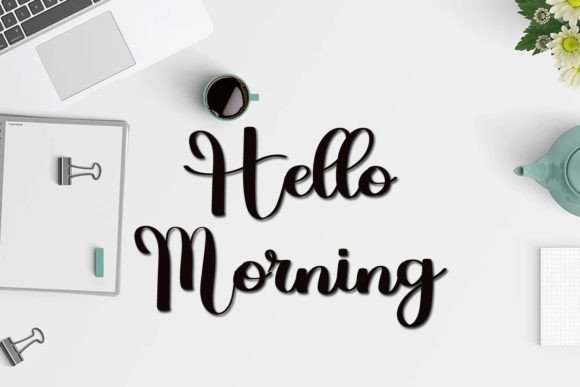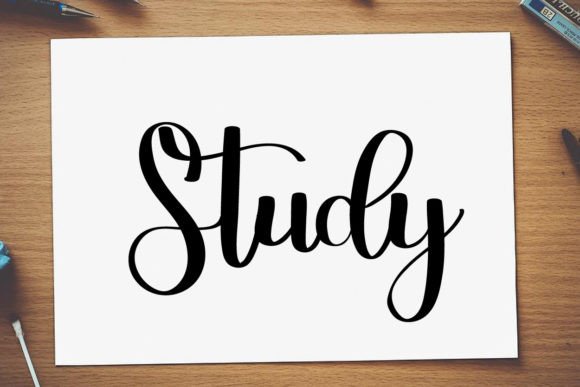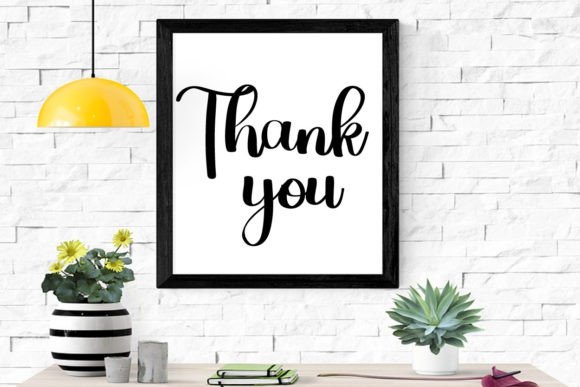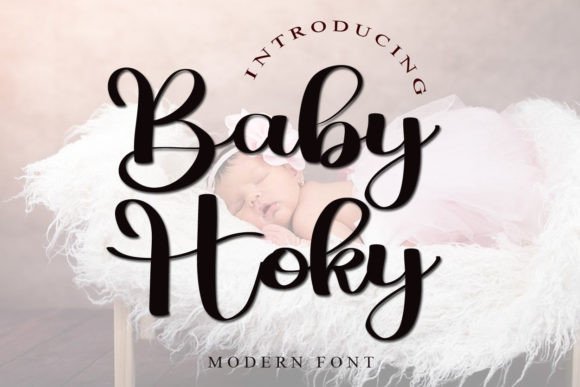
Baby Hoky Font: The Perfect Choice for Adding a Personalized Touch
In the world of typography, fonts play a crucial role in conveying the tone and personality of a brand, product, or message. For designers and crafters looking for a fresh and relaxed script font, Baby Hoky is an excellent choice. This lovely typeface is perfect for adding a personalized touch to various projects, from YouTube banners and logos to wedding invitations and crafts.
What is Baby Hoky Font?
Baby Hoky is a modern script font that exudes a sense of calmness and friendliness. Its unique letterforms are designed to be highly legible, making it suitable for a wide range of applications. Whether you’re working on a branding project, creating social media content, or designing invitations, Baby Hoky is sure to impress.
Key Features of Baby Hoky Font
- Fresh and Relaxed Design: Baby Hoky’s design is characterized by its smooth and flowing lines, giving it a relaxed and approachable feel.
- Highly Legible: The font’s clear and simple letterforms ensure that your text is easy to read, even at smaller sizes.
- Versatile: Baby Hoky is suitable for a variety of projects, including YouTube banners, logos, wedding invitations, crafts, and more.
- Personalized Touch: The font’s script style adds a touch of personality to your designs, making them stand out from the crowd.
Use Cases for Baby Hoky Font
Baby Hoky is an incredibly versatile font that can be used in a variety of contexts. Here are some ideas to get you started:
- YouTube Banners and Logos: Create a professional-looking YouTube channel with a custom banner and logo featuring Baby Hoky.
- Wedding Invitations: Add a touch of elegance and sophistication to your wedding invitations with this beautiful script font.
- Crafts and DIY Projects: Use Baby Hoky to add a personal touch to your craft projects, such as handmade cards, gift tags, and more.
- Branding and Packaging: Incorporate Baby Hoky into your brand identity to create a consistent and recognizable visual style.
Tips for Using Baby Hoky Font
To get the most out of Baby Hoky, here are some tips to keep in mind:
- Pair with Other Fonts: Experiment with pairing Baby Hoky with other fonts to create a unique and visually appealing combination.
- Adjust Font Size and Color: Play around with different font sizes and colors to find the perfect balance for your design.
- Use for Headings and Titles: Baby Hoky’s script style makes it perfect for headings and titles, adding a touch of personality to your text.
In conclusion, Baby Hoky is a beautiful and versatile script font that’s perfect for designers and crafters looking to add a personalized touch to their projects. With its fresh and relaxed design, high legibility, and versatility, Baby Hoky is an excellent choice for a wide range of applications. Whether you’re working on a branding project, creating social media content, or designing invitations, Baby Hoky is sure to impress.